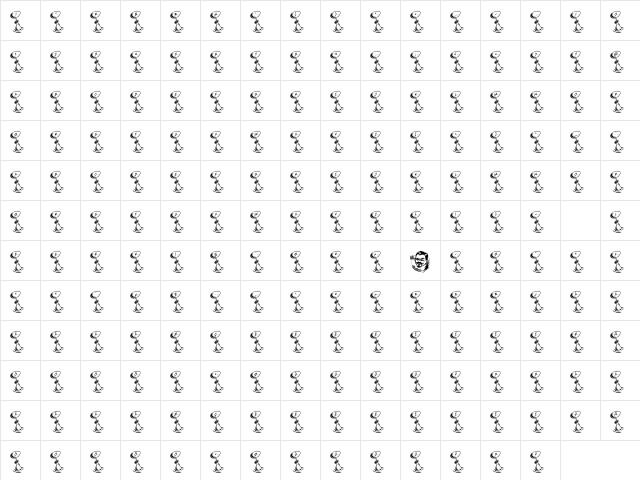
GriffinDucks Regular
Design Context for GriffinDucks Typeface
GriffinDucks is a composed and adaptable typeface that performs quietly and consistently across a wide range of design contexts.